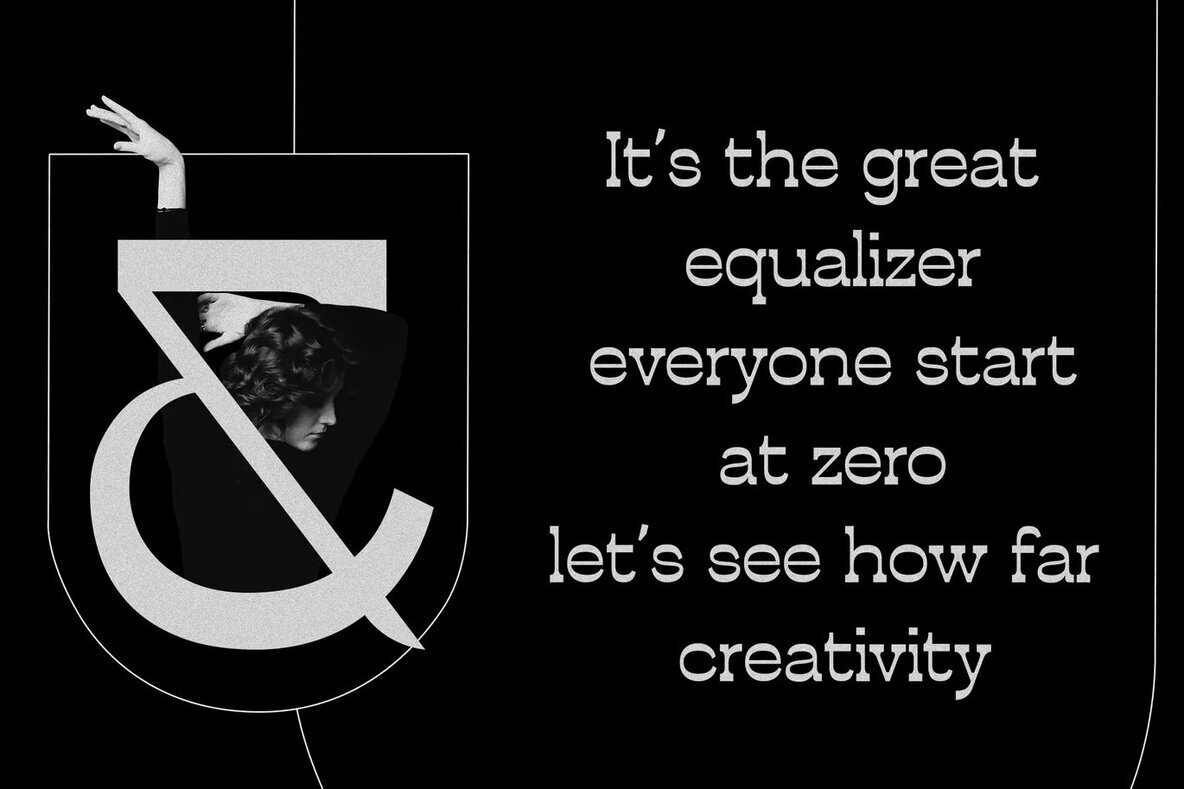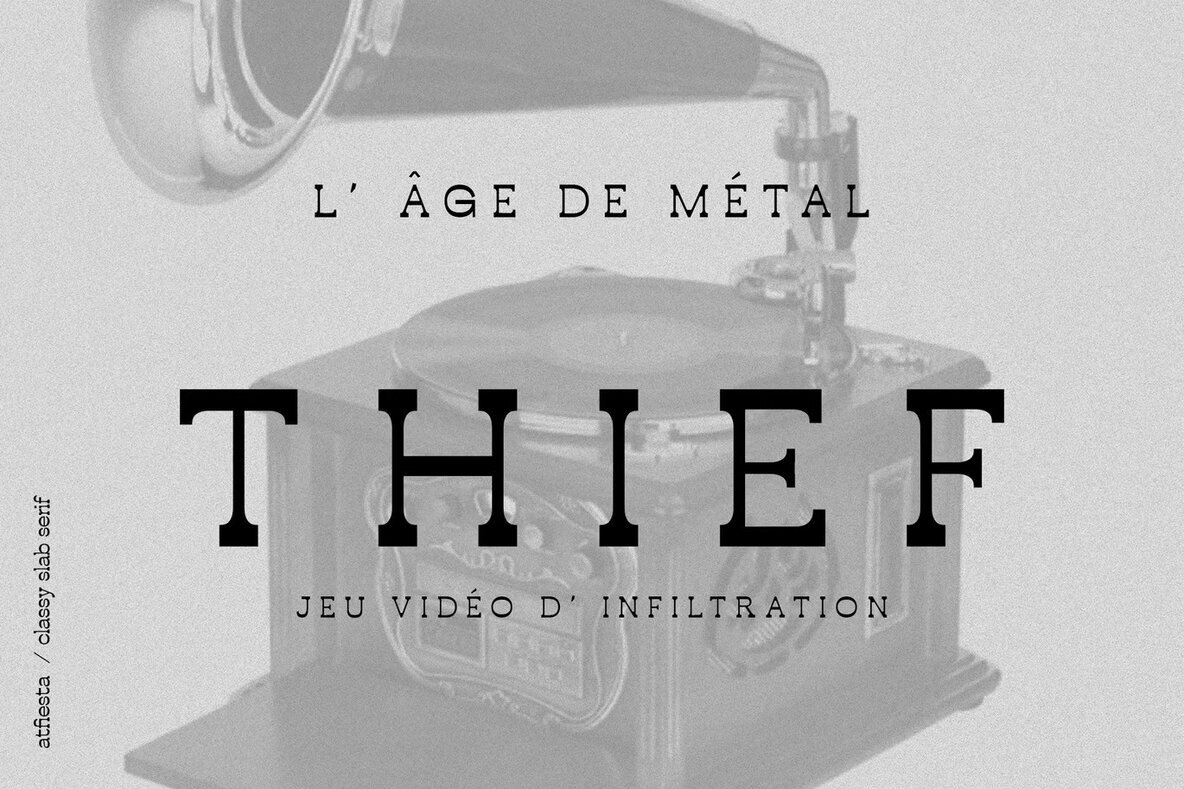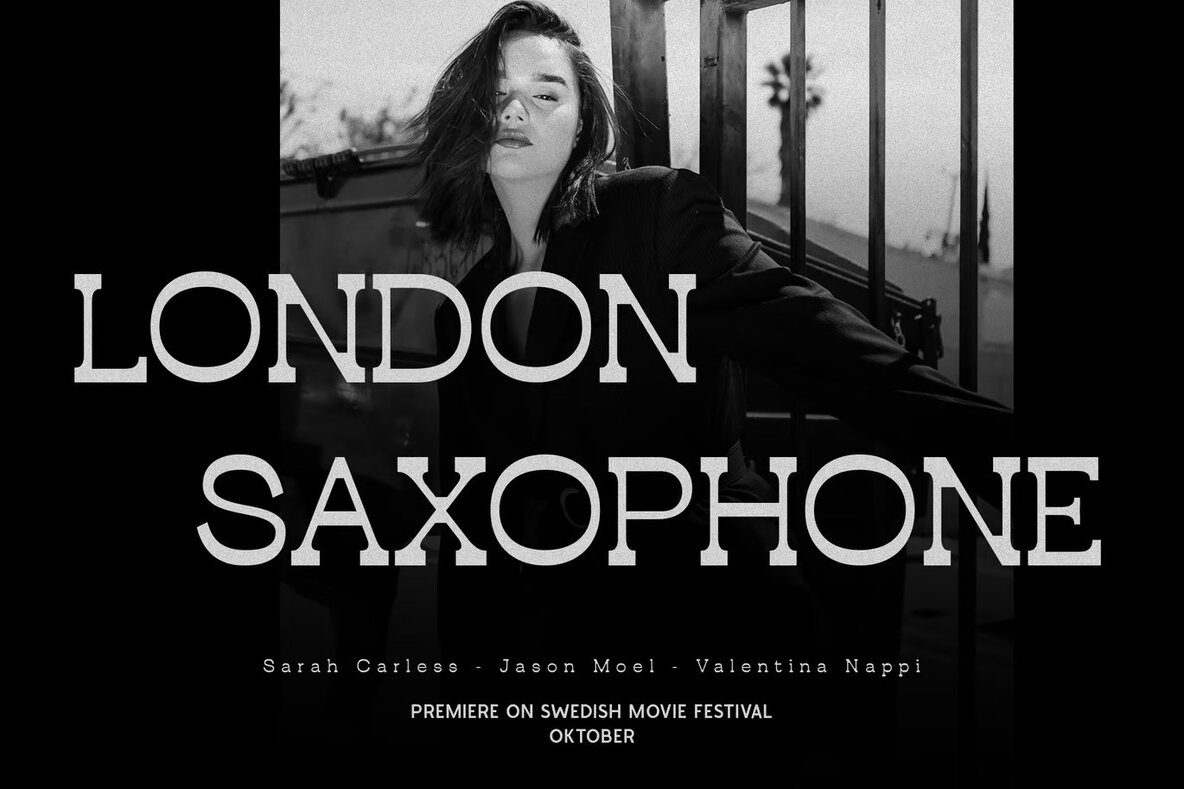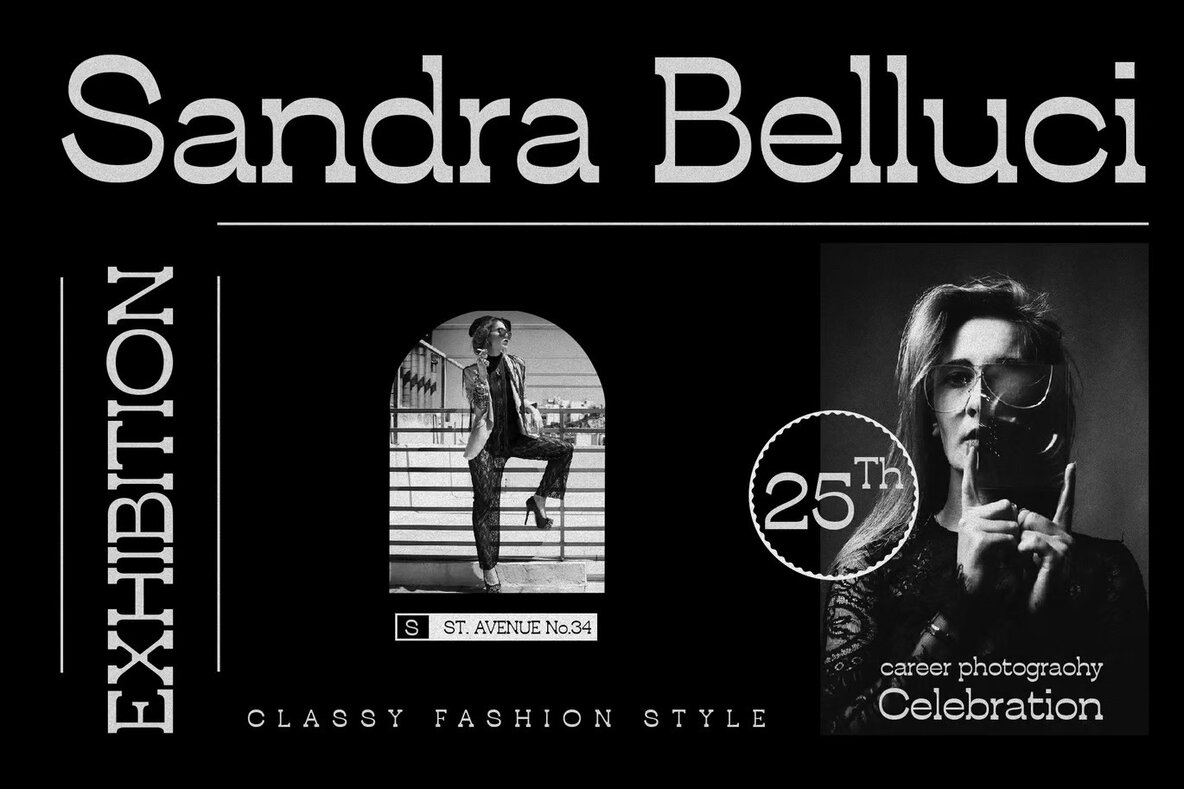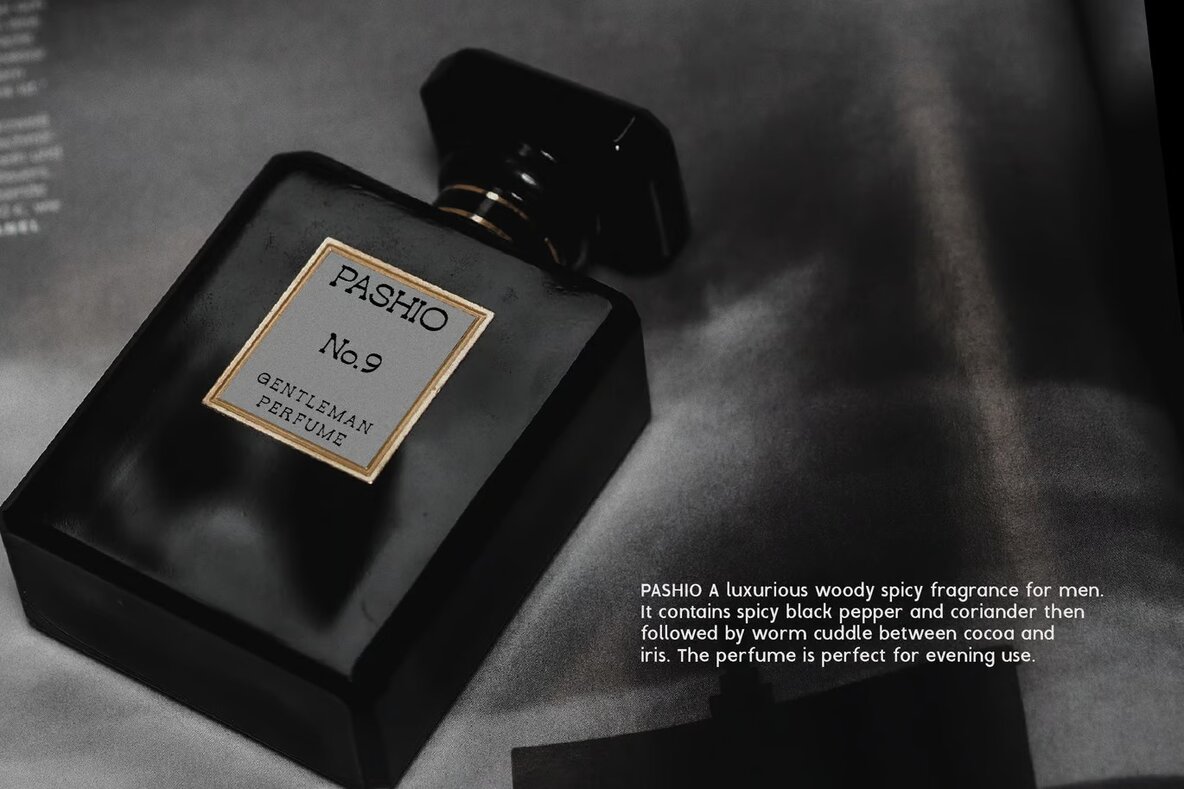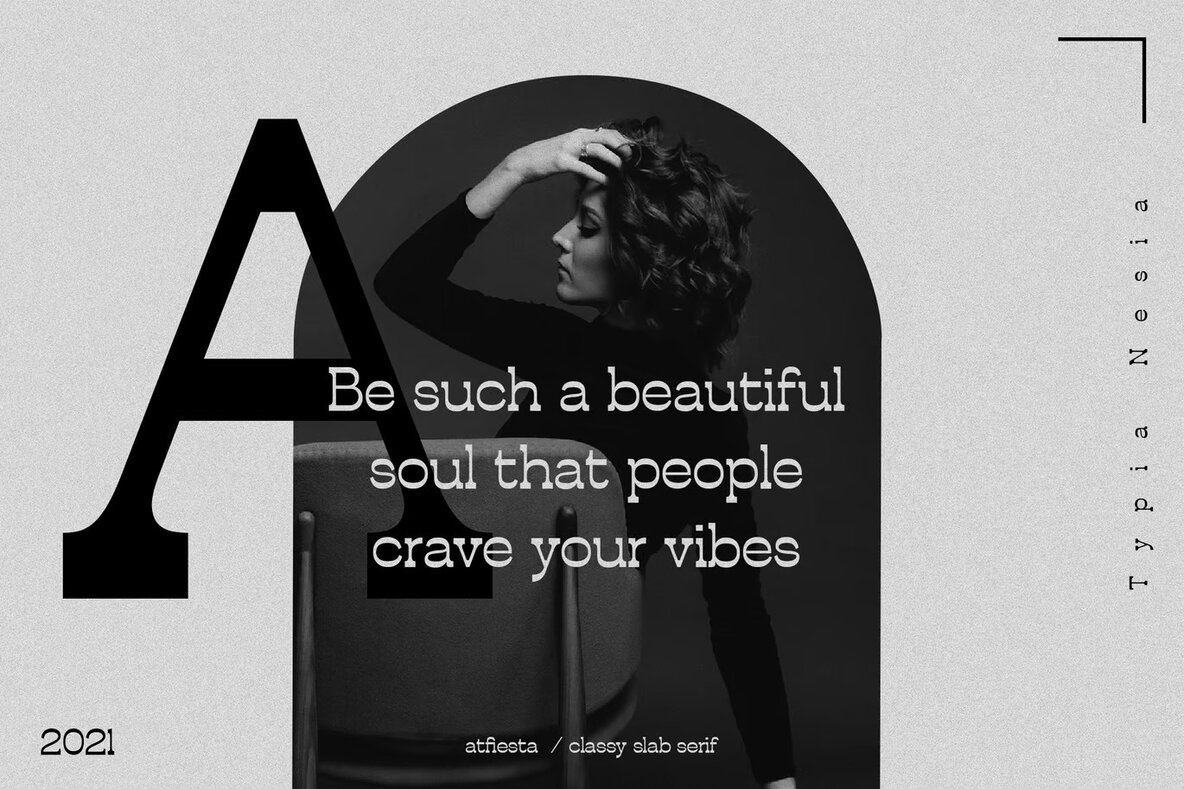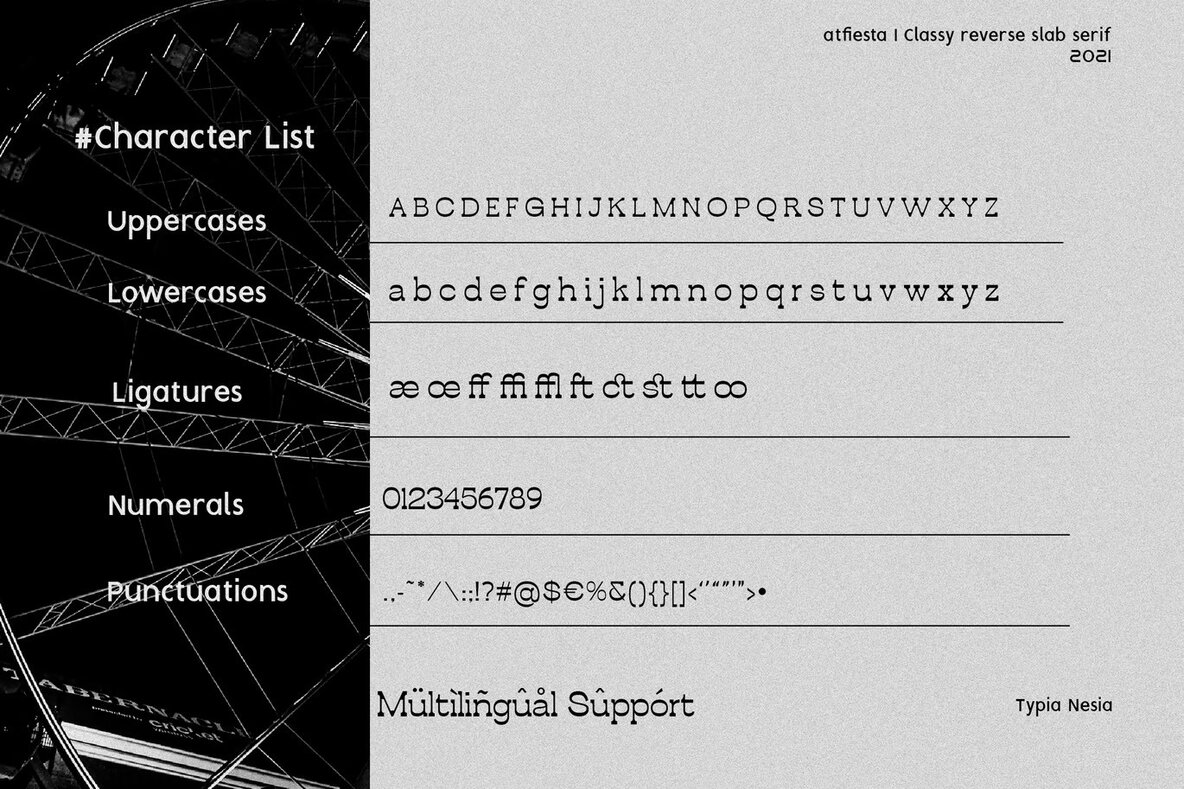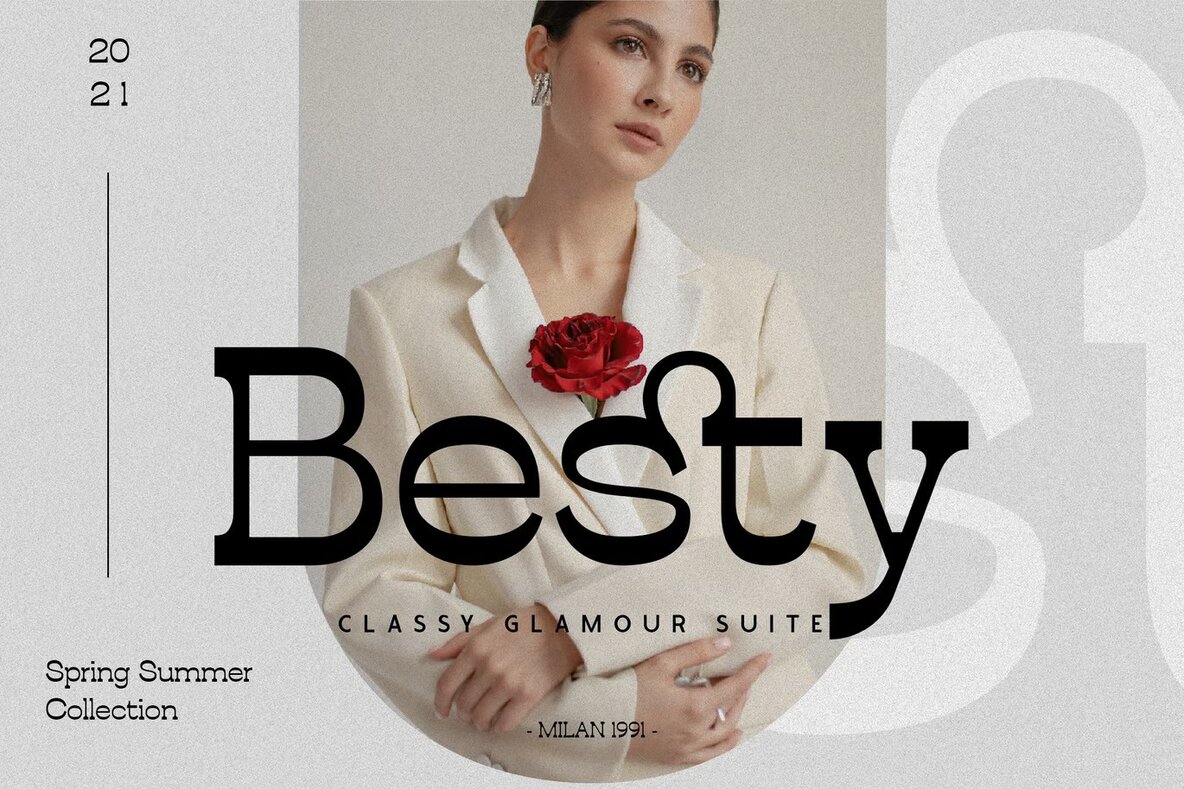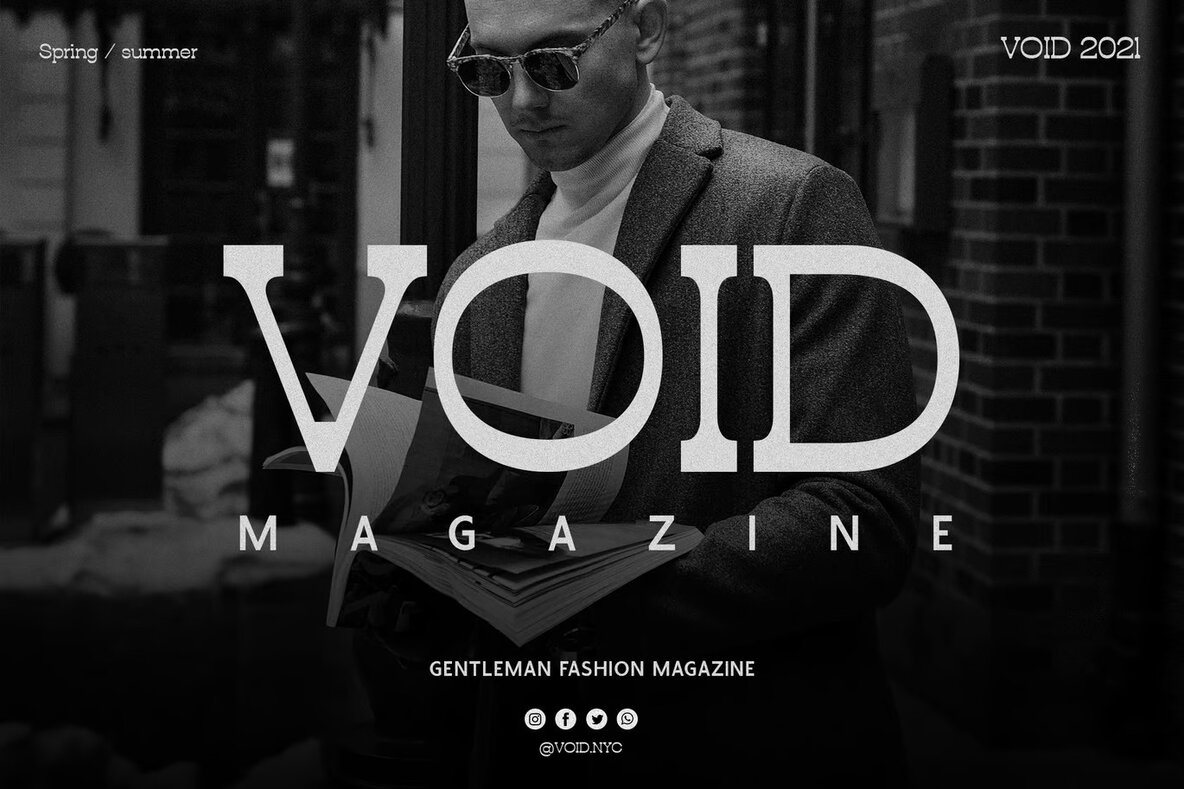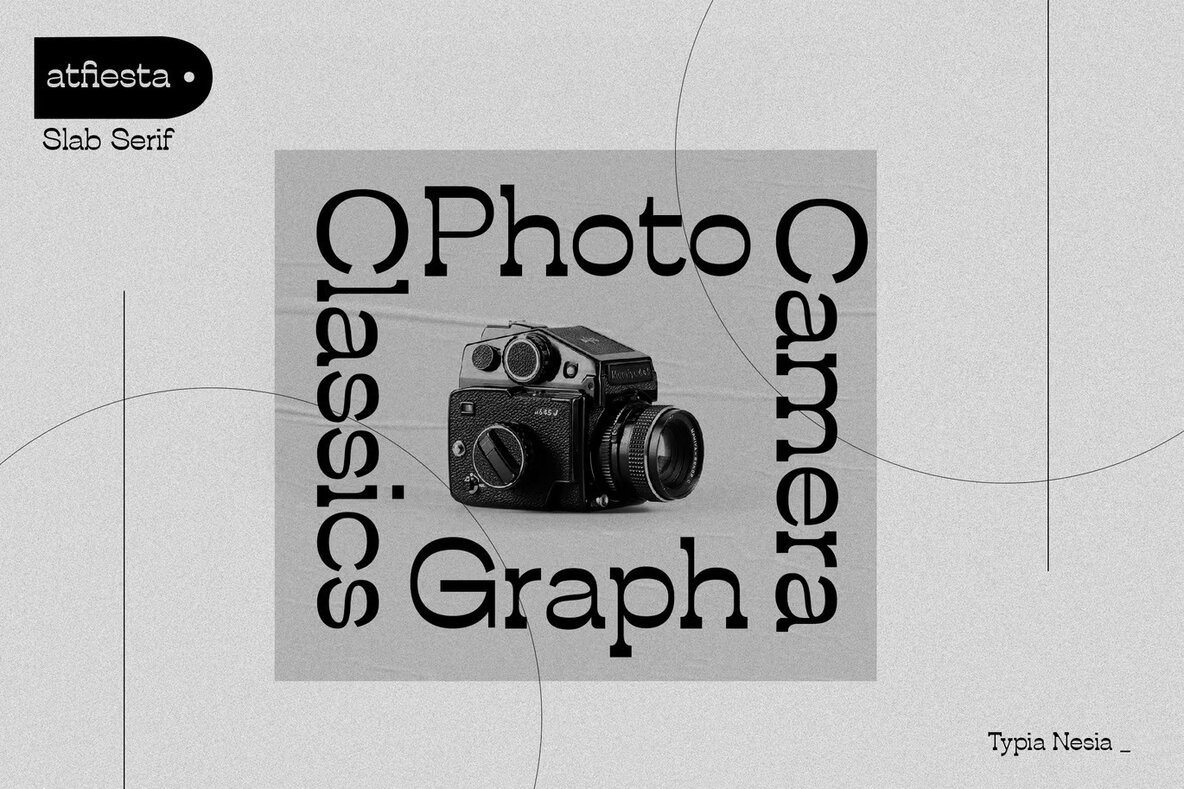
Atfiesta Font
Atfiesta
This bold sans-serif font is perfect for projects requiring a modern and impactful look. Its clean and strong lines make it ideal for headlines, branding, and advertising materials. The font's geometric and contemporary style ensures clarity and legibility, making it a versatile choice for posters, titles, and any graphic design work where a professional appearance is key.